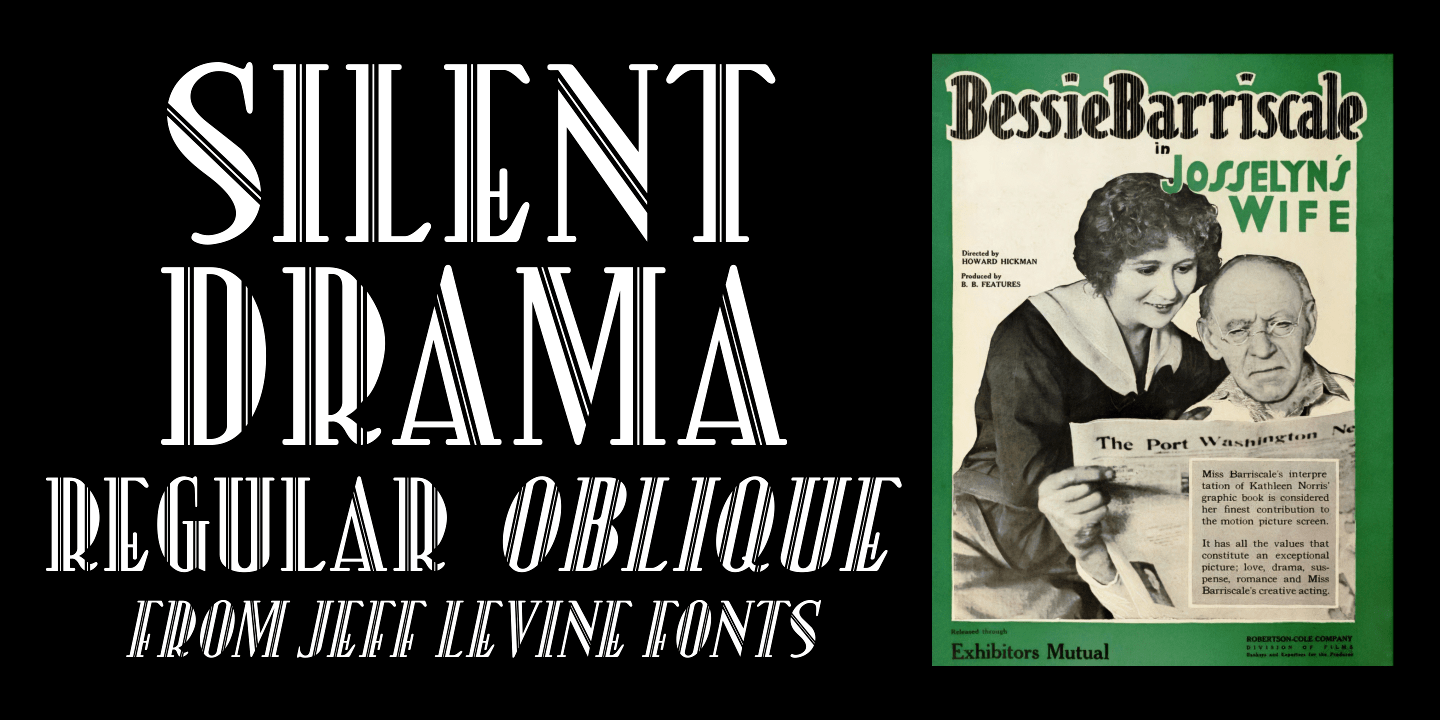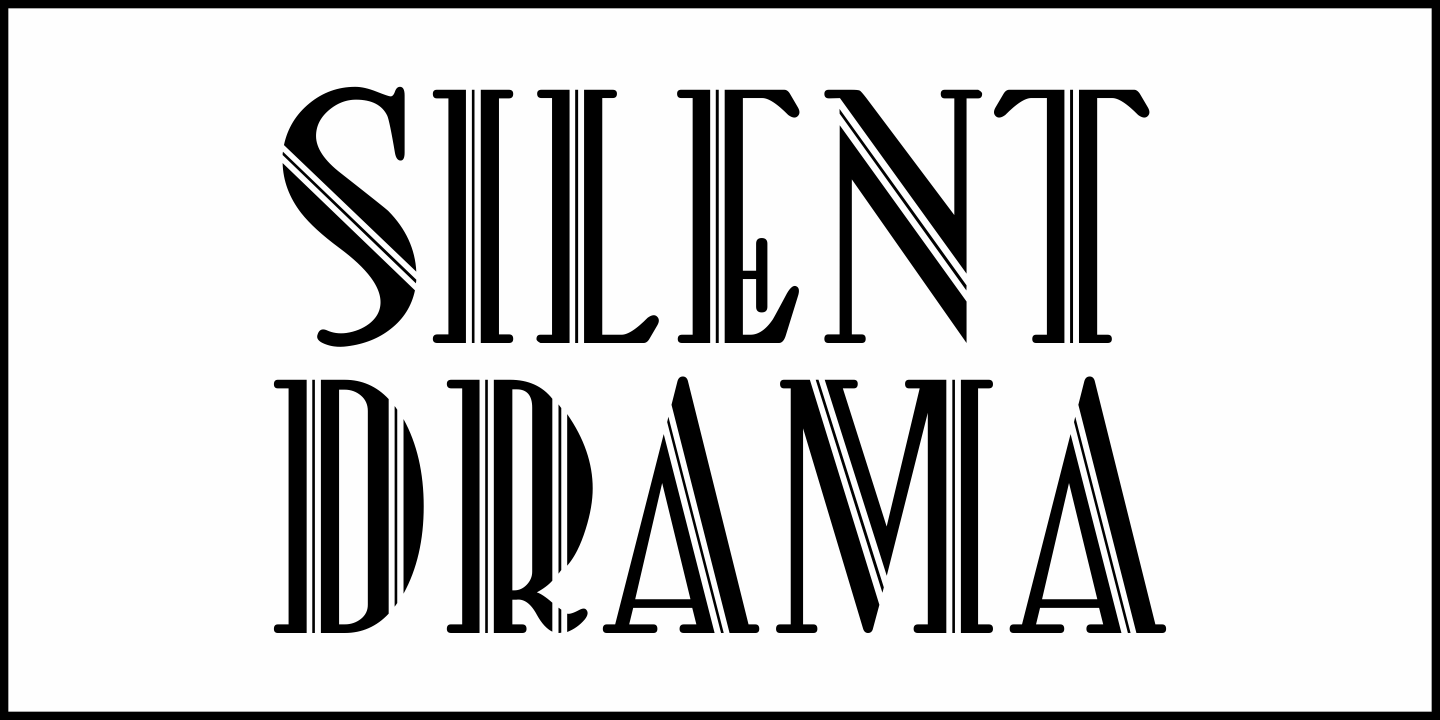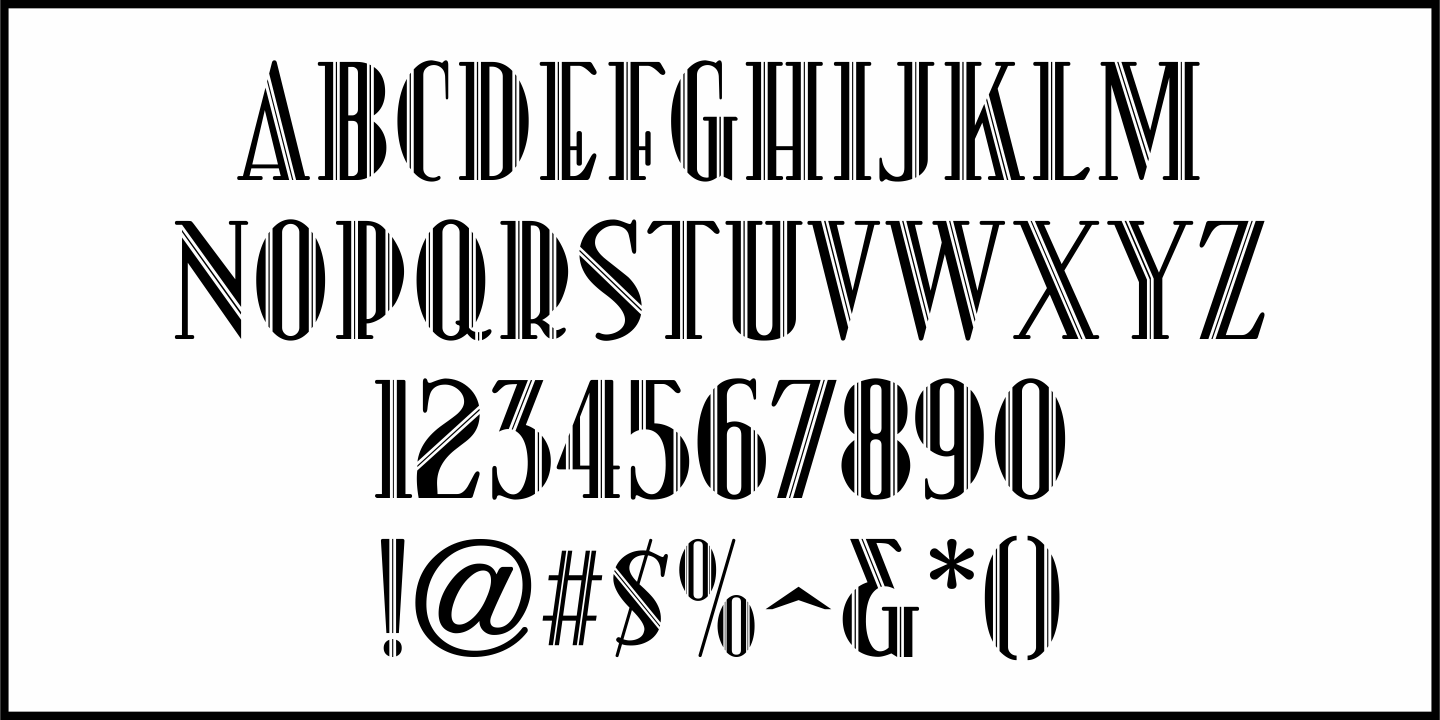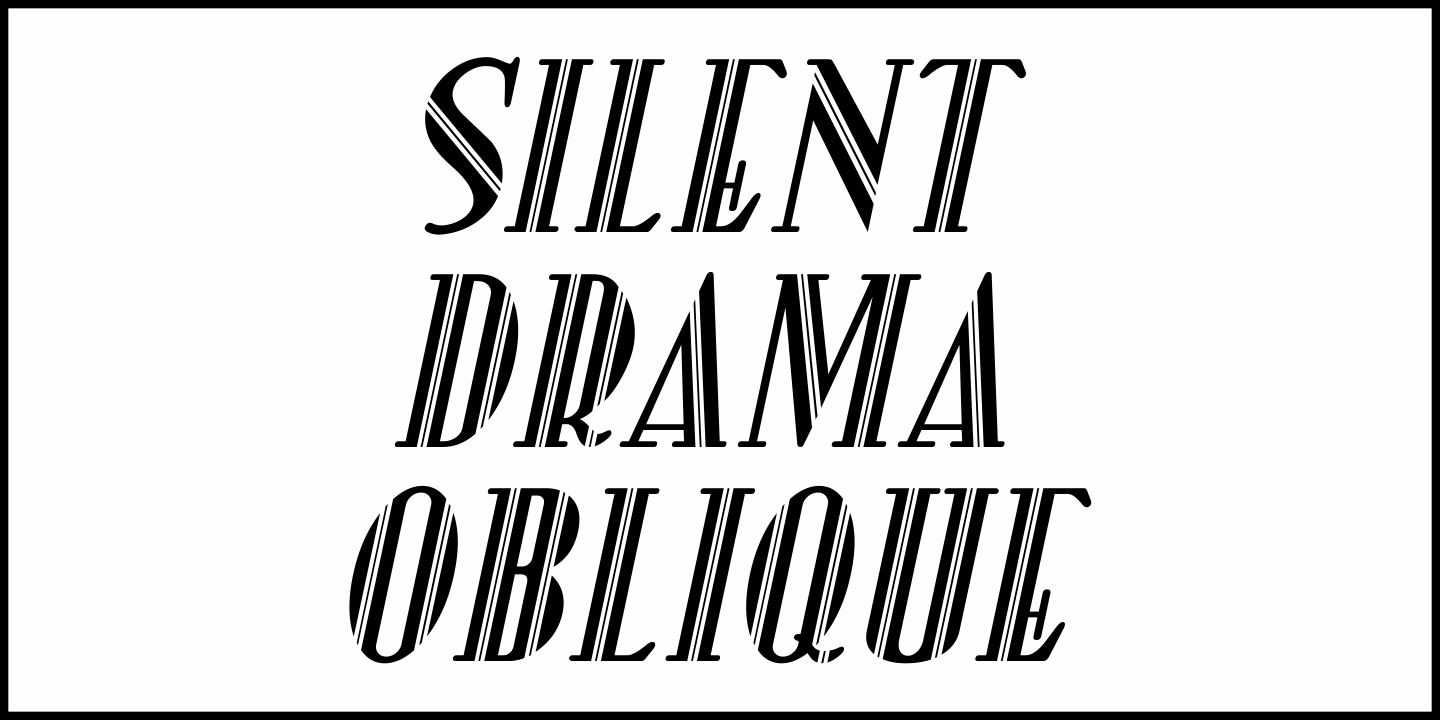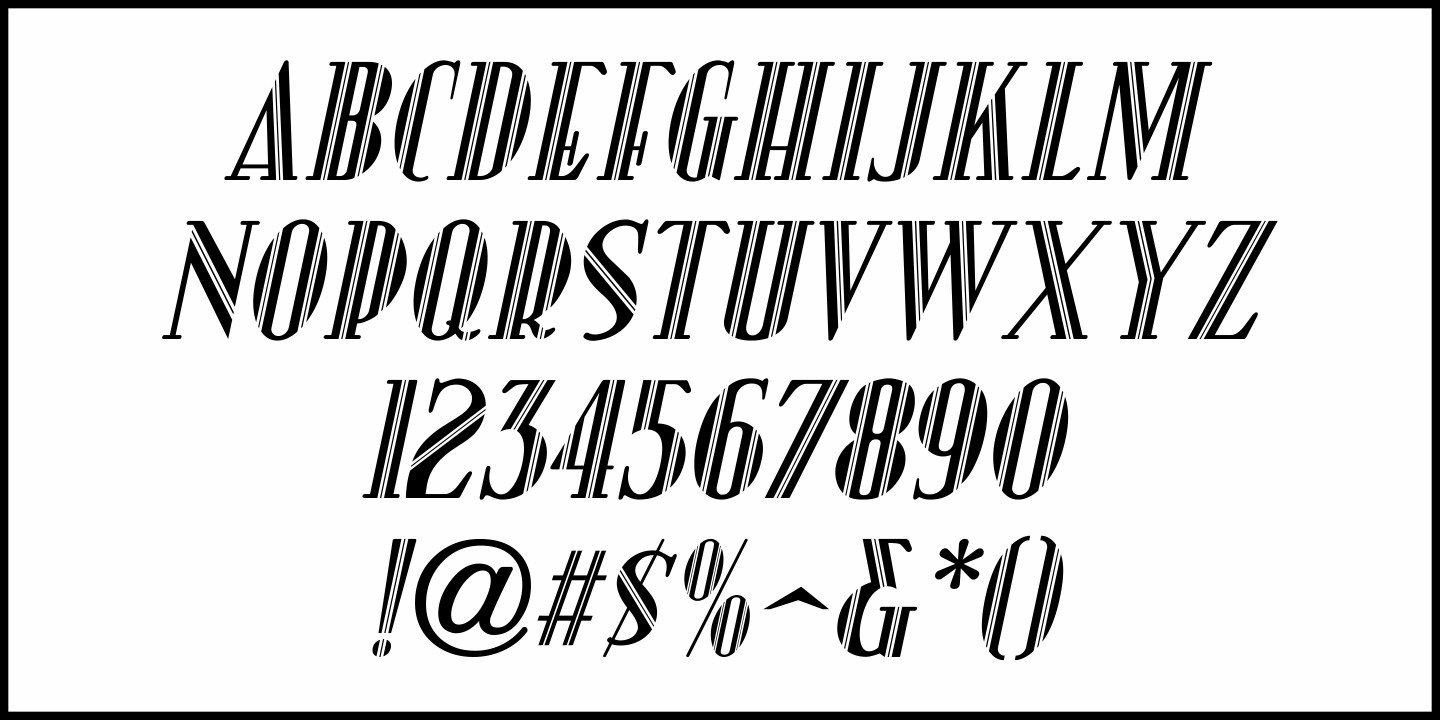
Silent Drama
An ad in the April 19, 1919 edition of Motion Picture News for the (now lost) silent drama "Josselyn's Wife" featured some wonderfully stylized Art Nouveau hand lettering.
Primarily a condensed character set with rounded serifs, there are a number of letters that take liberties in both width and character shape. Adding to this, [mostly vertical] parallel lines are cut through the characters to create a "striped' type of "double engraved' effect.
Silent Drama JNL is available in both regular and oblique versions.